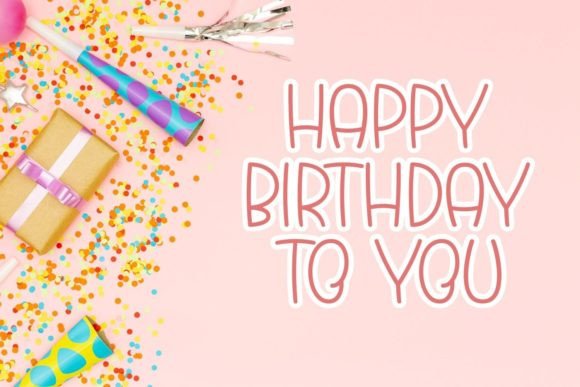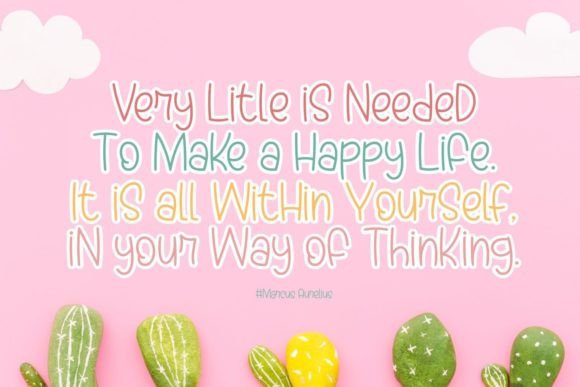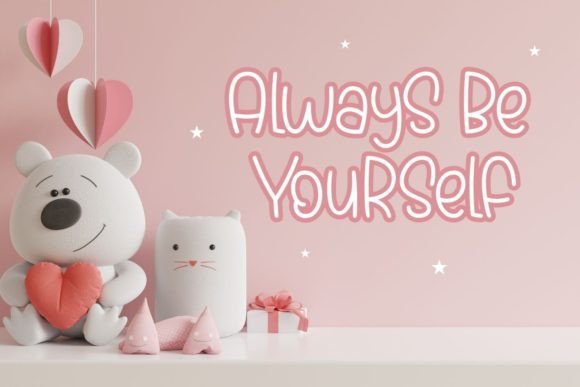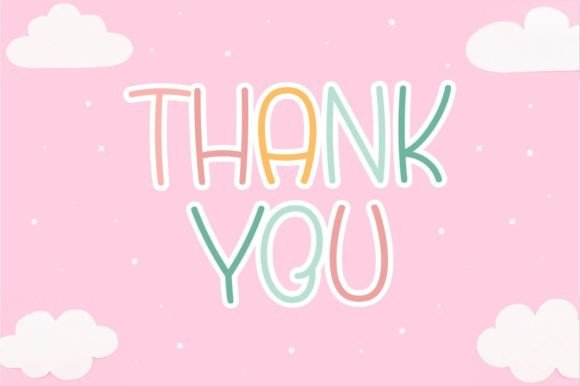
Introducing Beauty Rainbow Font: Add a Pop of Color to Your Designs
Are you tired of using the same old fonts in your design projects? Look no further than the Beauty Rainbow Font, a fun, cute, and cheerful sans serif font that’s sure to add a playful note to your creations. With its whimsical characters and vibrant colors, this adorable typeface is perfect for designers and crafters looking to bring a little joy and personality to their work.
The Perfect Font for Creative Projects
Beauty Rainbow Font is a versatile typeface that’s perfect for a wide range of creative projects, from DIY crafts and party decorations to digital designs and social media graphics. Its playful and cheerful vibe makes it ideal for designs that require a fun and youthful touch, such as:
- Party invitations and decorations
- Kids’ party themes and activities
- DIY crafts and scrapbooking
- Digital art and illustrations
What Makes Beauty Rainbow Font So Special?
So, what sets Beauty Rainbow Font apart from other fonts? Here are just a few of its unique features:
- Whimsical characters: Each character in the Beauty Rainbow Font is carefully crafted to be playful and fun, with a unique and quirky personality.
- Vibrant colors: The font comes in a range of bright and bold colors, from pastel pinks and blues to sunshine yellows and oranges.
- Easy to read: Despite its playful vibe, Beauty Rainbow Font is still easy to read and understand, making it perfect for designs that require a clear and concise message.
- Highly versatile: The font can be used in a wide range of design projects, from digital designs to print materials.
How to Use Beauty Rainbow Font in Your Designs
Using Beauty Rainbow Font in your designs is easy! Here are a few tips to get you started:
- Pair it with other fonts: Beauty Rainbow Font looks great when paired with other fonts, such as bold and modern sans serif fonts or elegant script fonts.
- Experiment with colors: Try out different color combinations to find the perfect match for your design. You can use the font’s built-in colors or experiment with different shades and hues.
- Add graphics and illustrations: Beauty Rainbow Font looks great when paired with fun and playful graphics and illustrations, such as cartoon characters, flowers, or animals.
Here are a few tips for designers and crafters looking to get the most out of Beauty Rainbow Font:
- Use it to add personality to your designs: Beauty Rainbow Font is all about adding a playful and cheerful touch to your designs. Use it to add personality and whimsy to your projects.
- Experiment with different sizes and styles: Try out different font sizes and styles to find the perfect fit for your design.
- Don’t be afraid to get creative: Beauty Rainbow Font is a versatile typeface that can be used in a wide range of design projects. Don’t be afraid to experiment and try new things!
| Font Name | Beauty Rainbow Font |
| Author | Wakhamm (7NTypes) |
In conclusion, Beauty Rainbow Font is a fun, cute, and cheerful sans serif font that’s perfect for designers and crafters looking to add a playful note to their creative projects. With its whimsical characters, vibrant colors, and highly versatile design, this adorable typeface is sure to bring joy and personality to your work. So why not give it a try and see what amazing designs you can create?